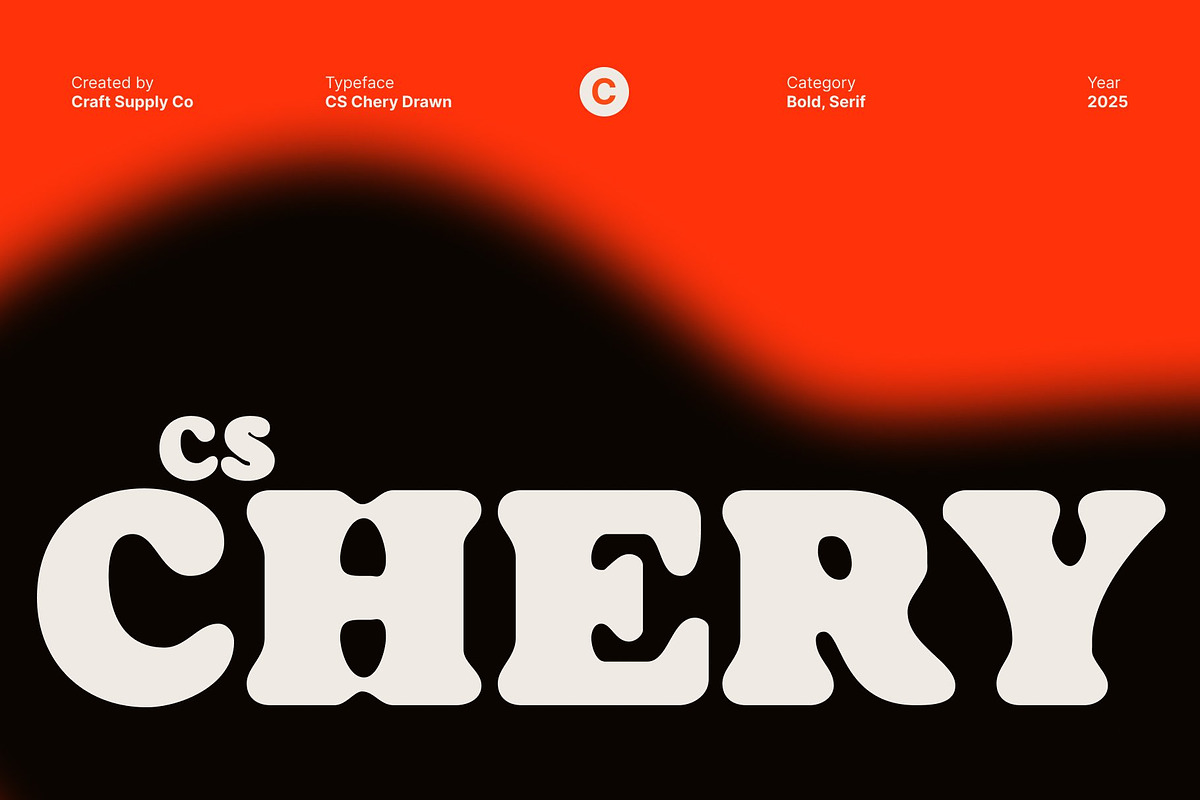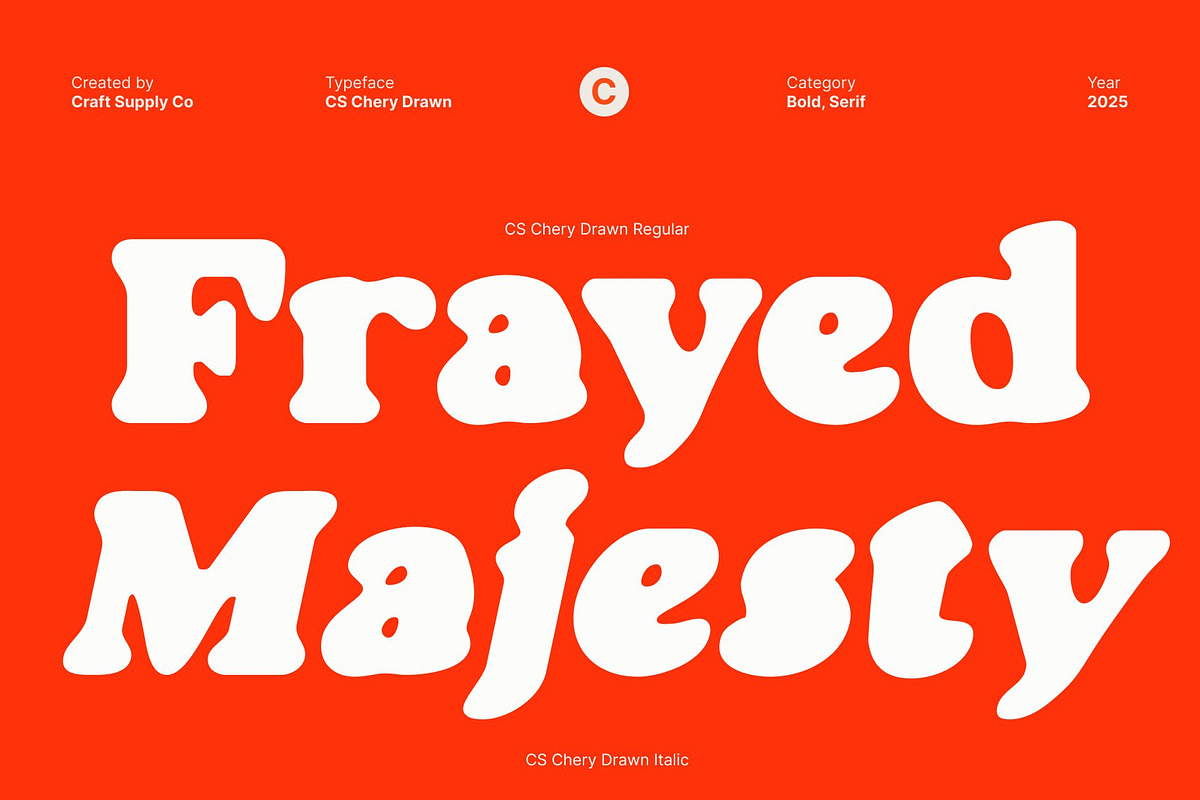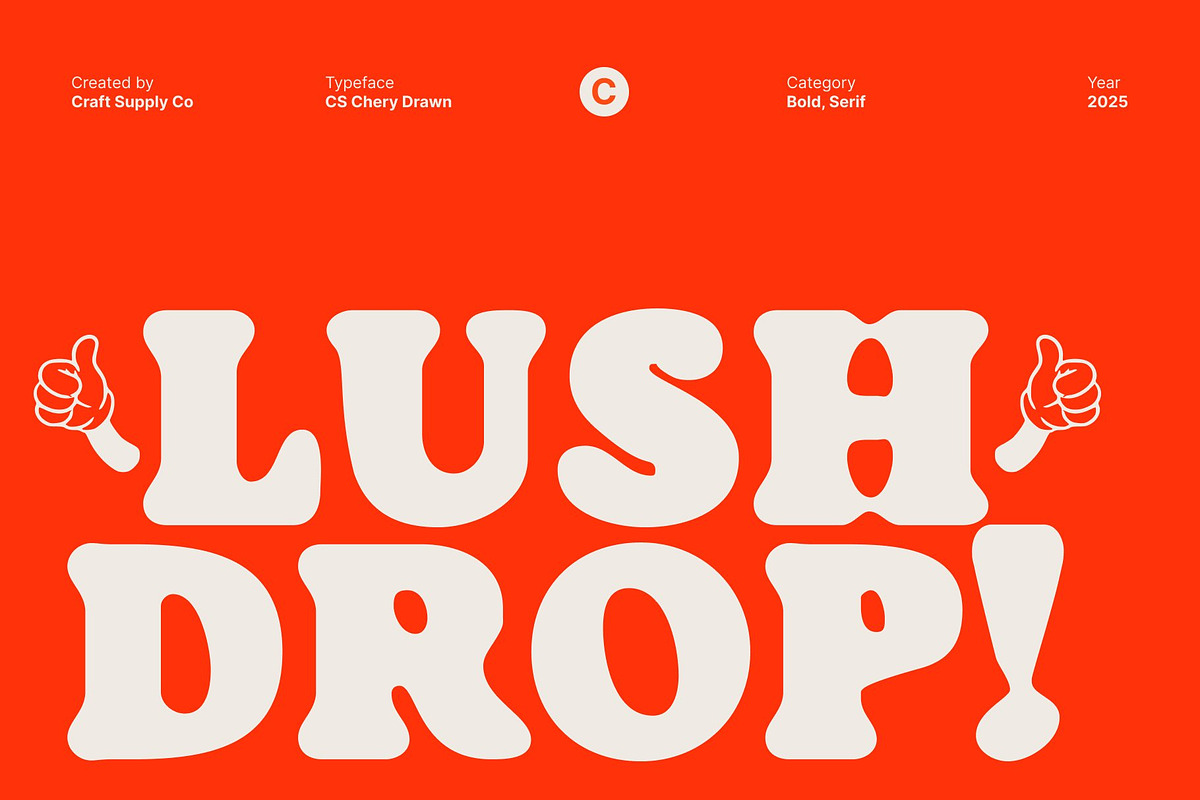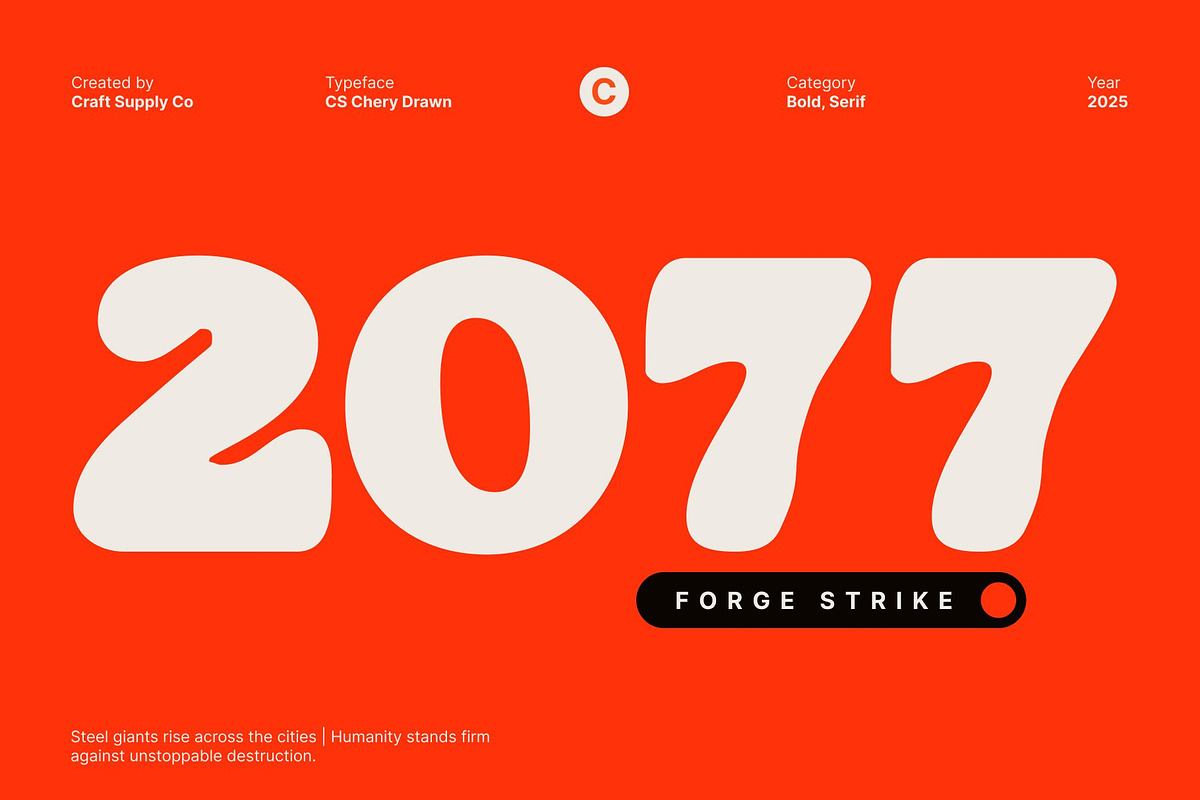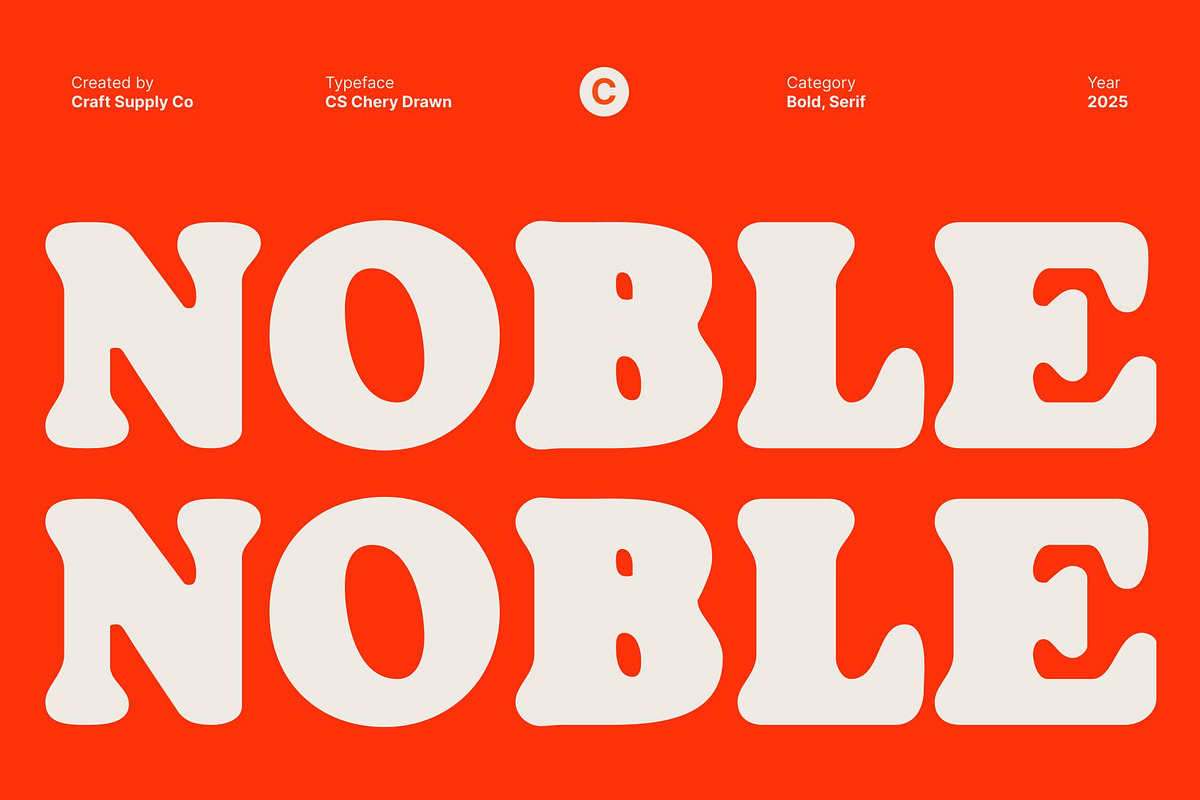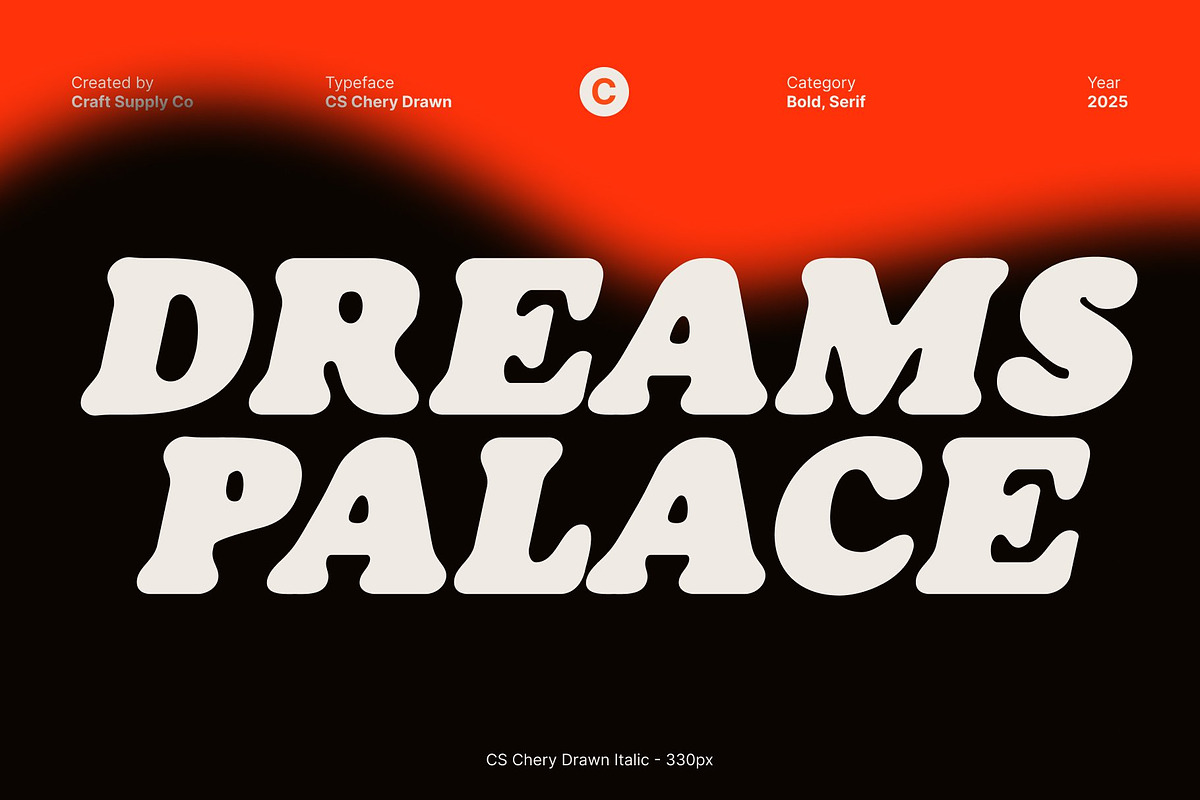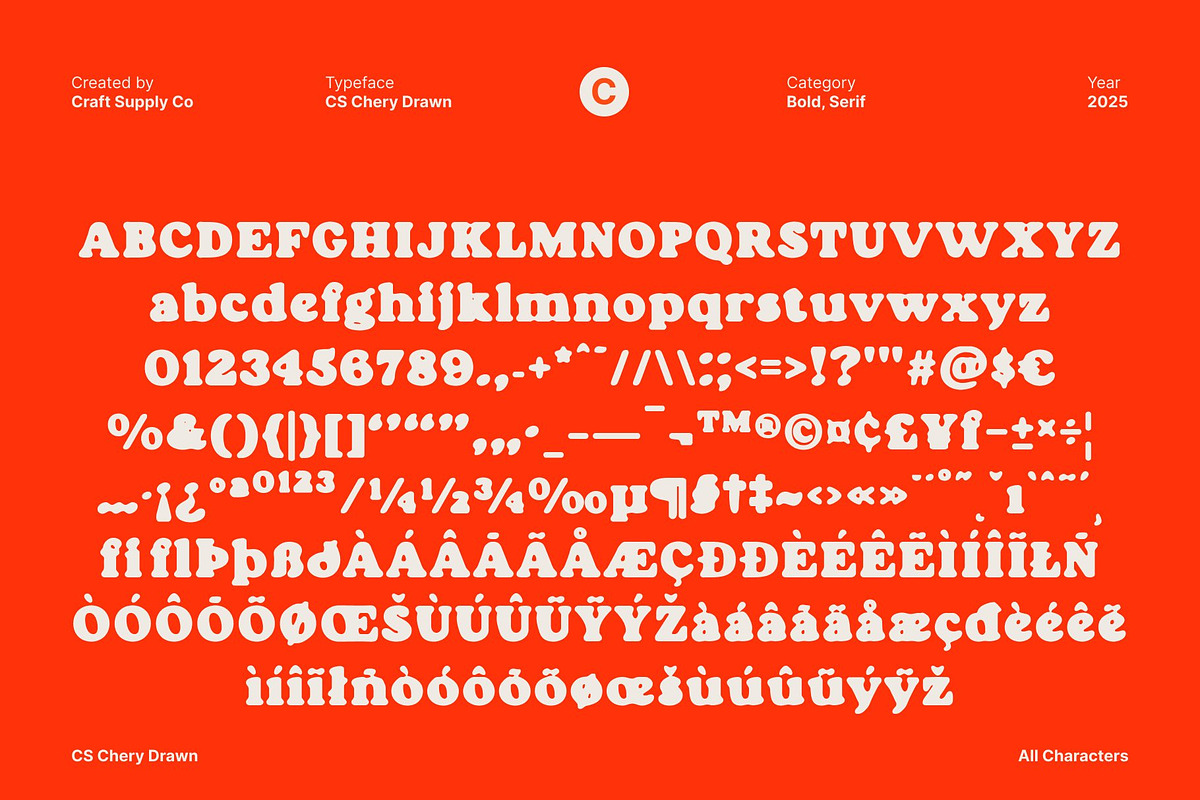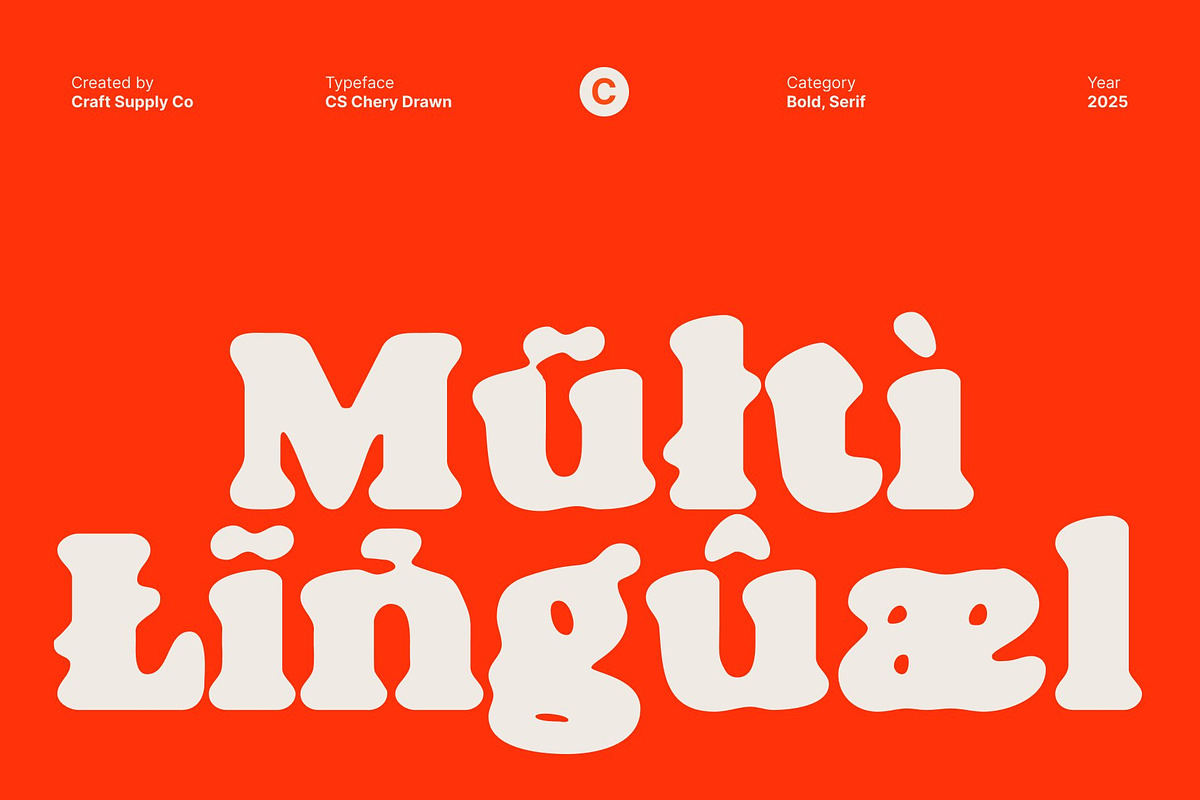
CS Chery Drawn
CS Chery Drawn – Bold Hand-Drawn Display Serif
A Bold Display Serif Designed for Maximum Impact This is a bold display serif font crafted to capture attention instantly. With its thick strokes, confident structure, and powerful presence, this font brings strong visual weight to any layout. Every letter is intentionally shaped to deliver impact, making it ideal for designs that need to stand out boldly and unmistakably whether on posters, headlines, or striking brand visuals.
Expressive Hand-Drawn Character for Artistic Flair Adding a unique touch to its bold serif form, features a hand-drawn effect that enhances its expressive, organic feel. The subtle imperfections and textured strokes breathe life into each character, giving the font a warm, soft, and artistic personality. This handcrafted detail ensures your designs feel memorable, personal, and visually dynamic.
A Perfect Blend of Strength and Softness This font beautifully merges strong serif construction with gentle, drawn textures. The result is a font that feels both powerful and approachable—a balance that fits a wide range of creative aesthetics. Its handcrafted style adds depth and emotion, making text feel more engaging and visually rich while maintaining bold clarity.
Ideal for Branding, Headlines, Posters, and Creative Displays Versatile and impactful, excels in projects that demand presence and personality. Use it for bold branding, expressive headlines, artistic posters, merchandise, editorial layouts, or any display design that needs a standout serif with character.